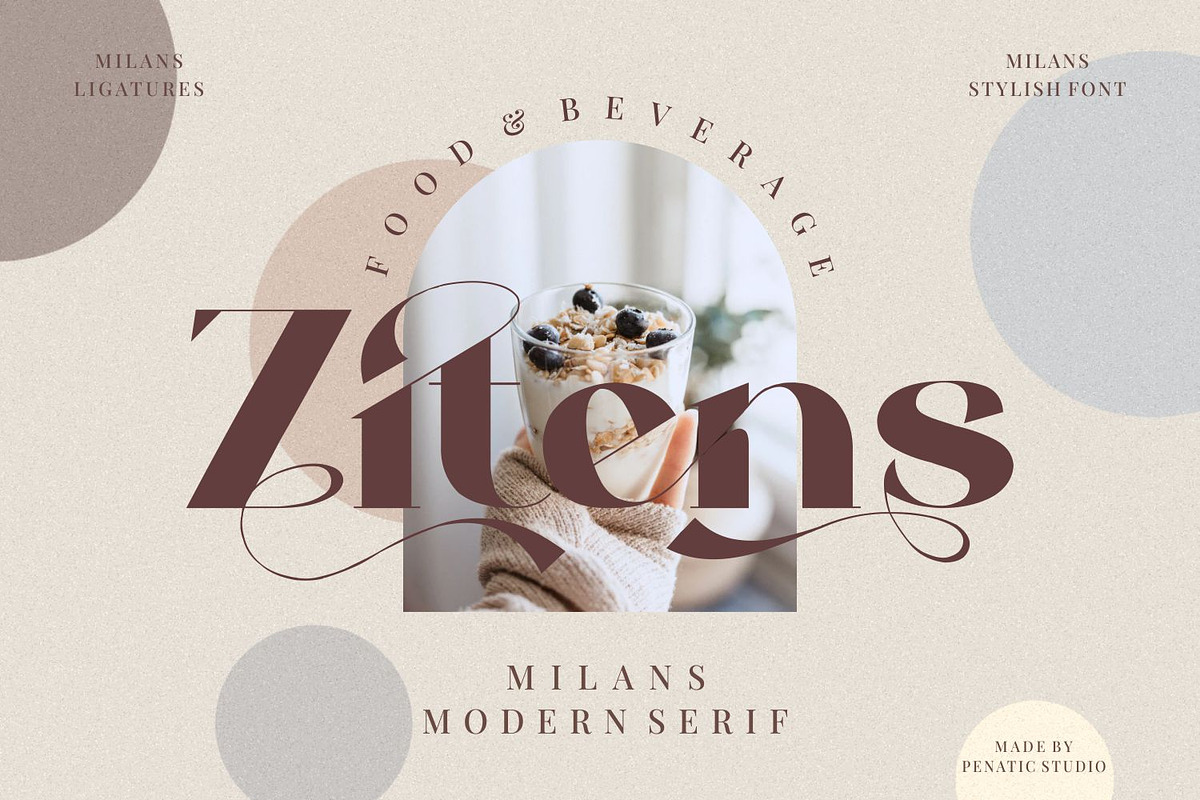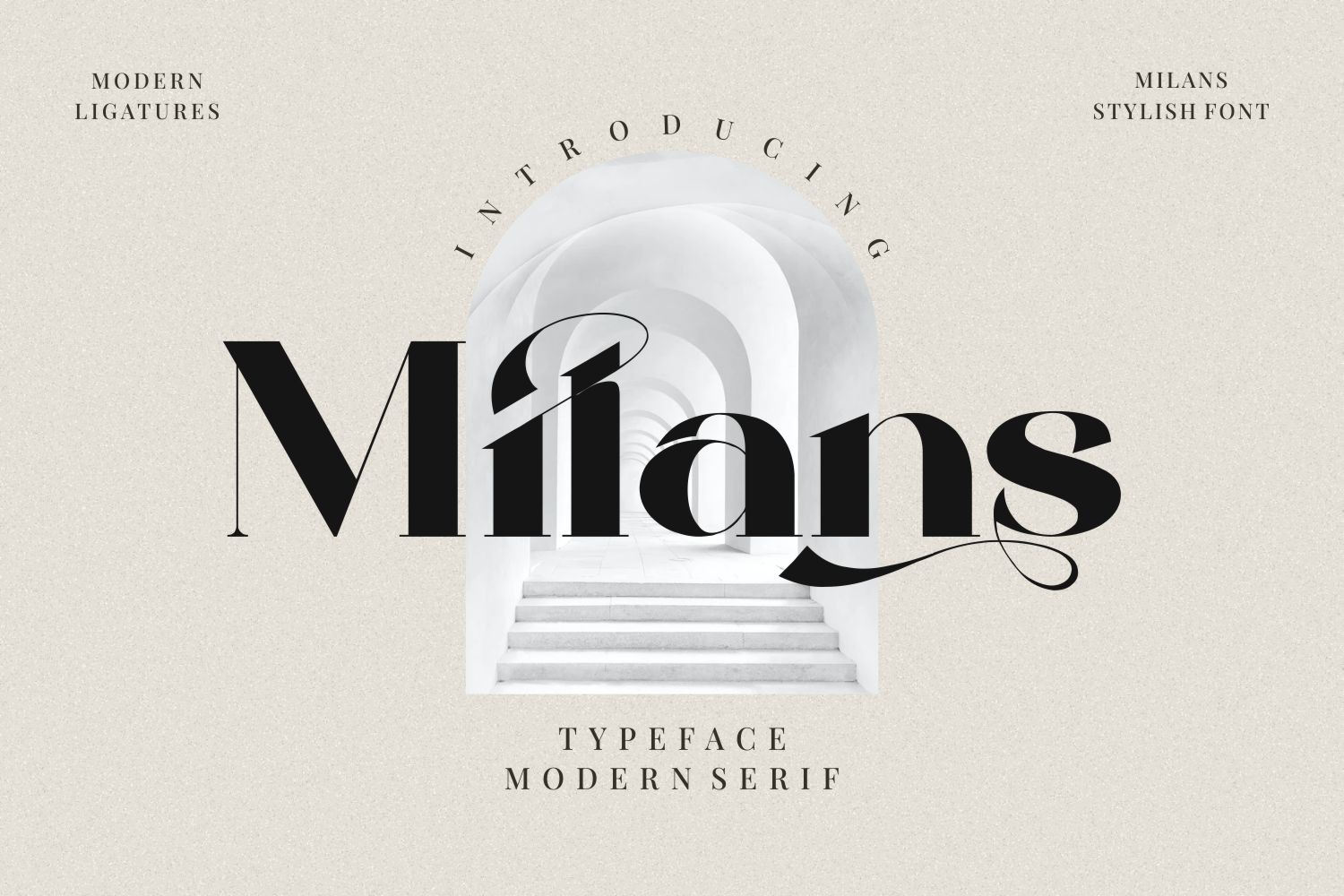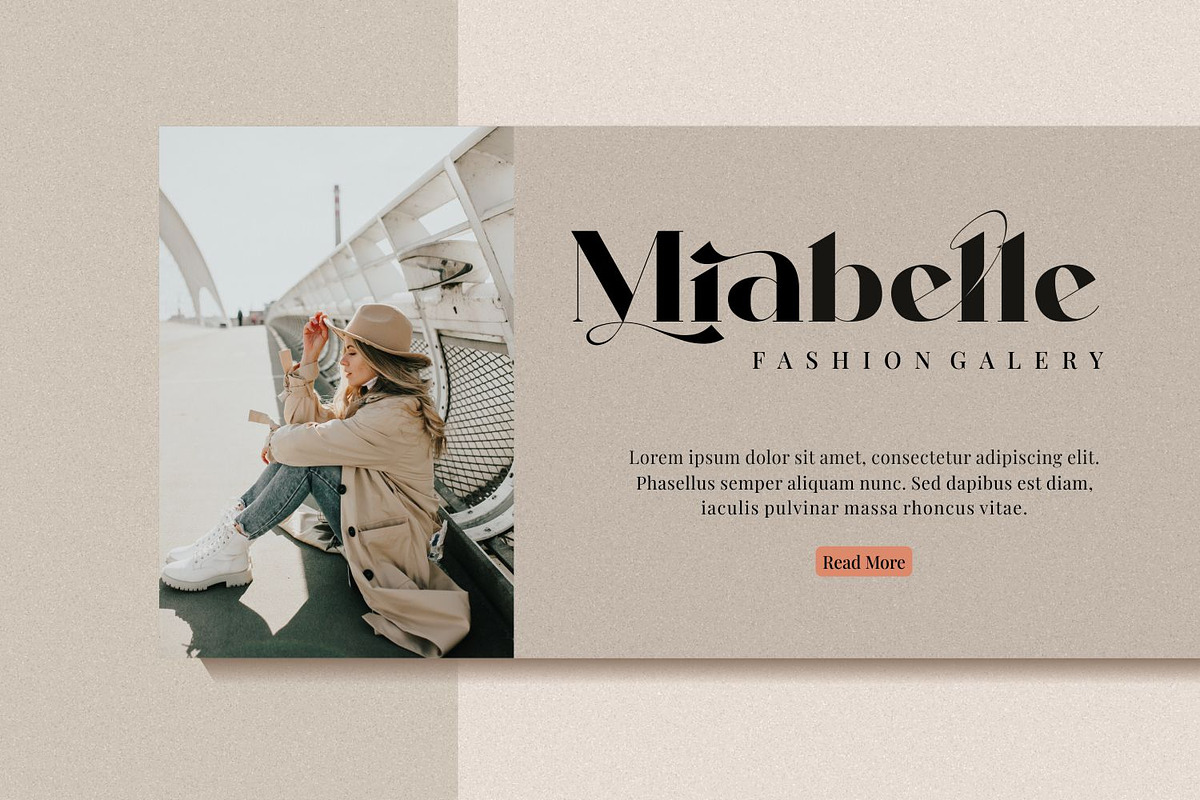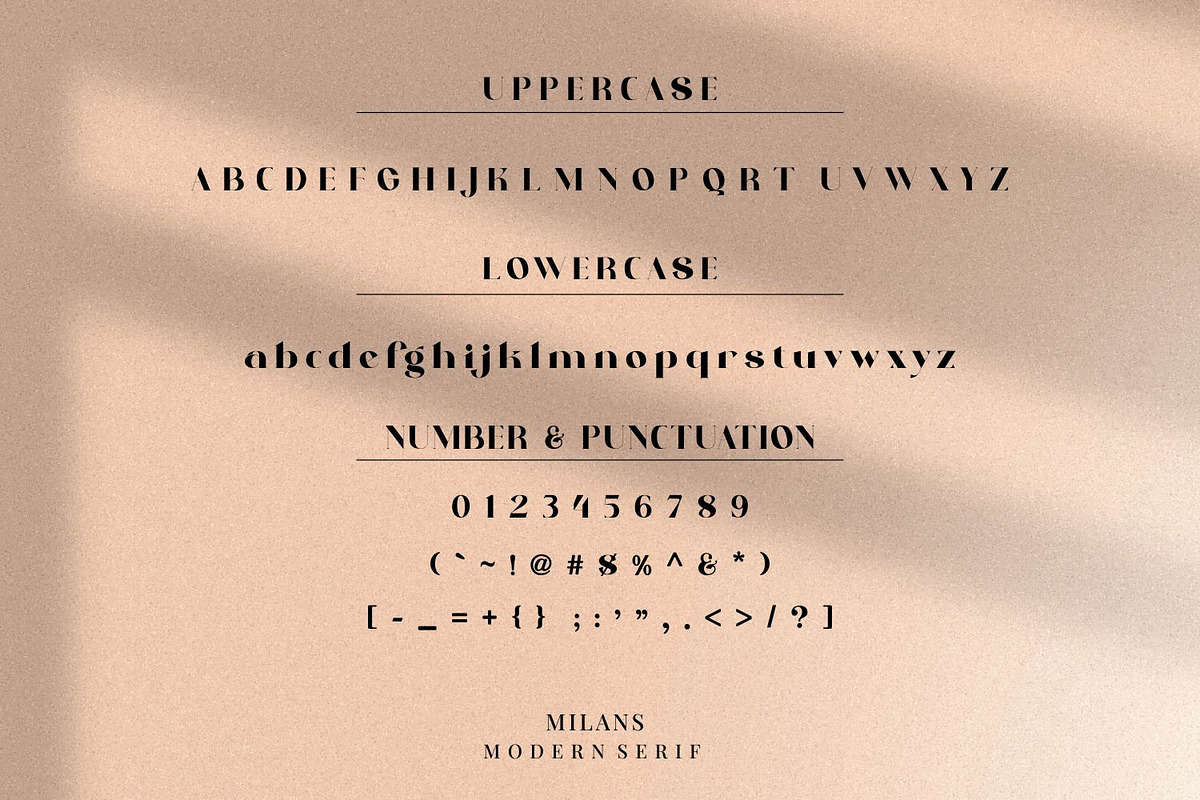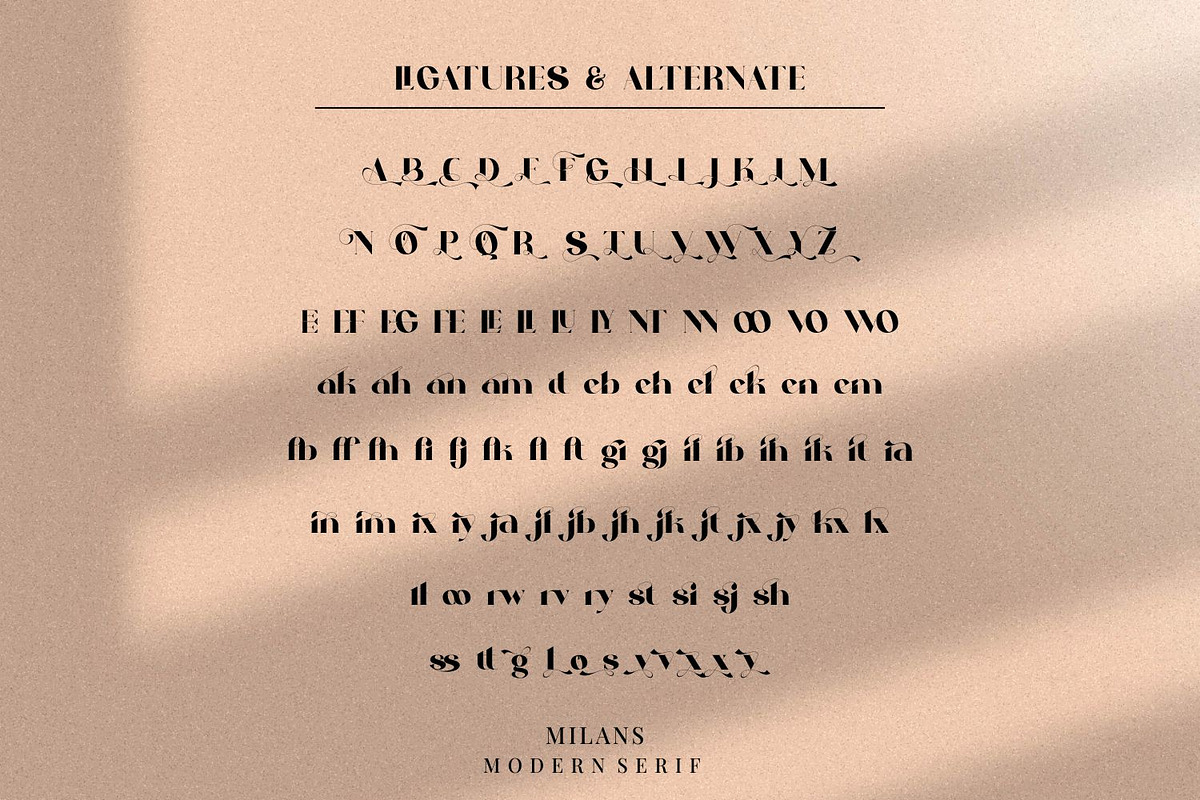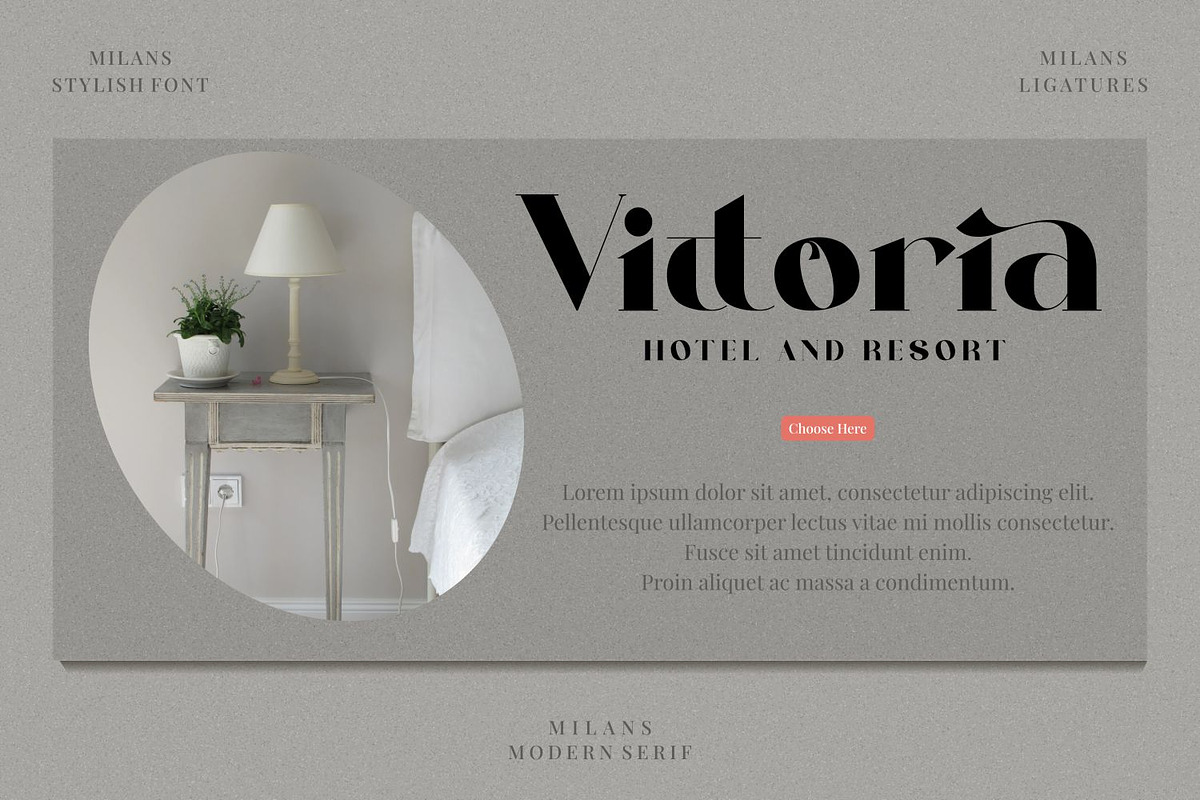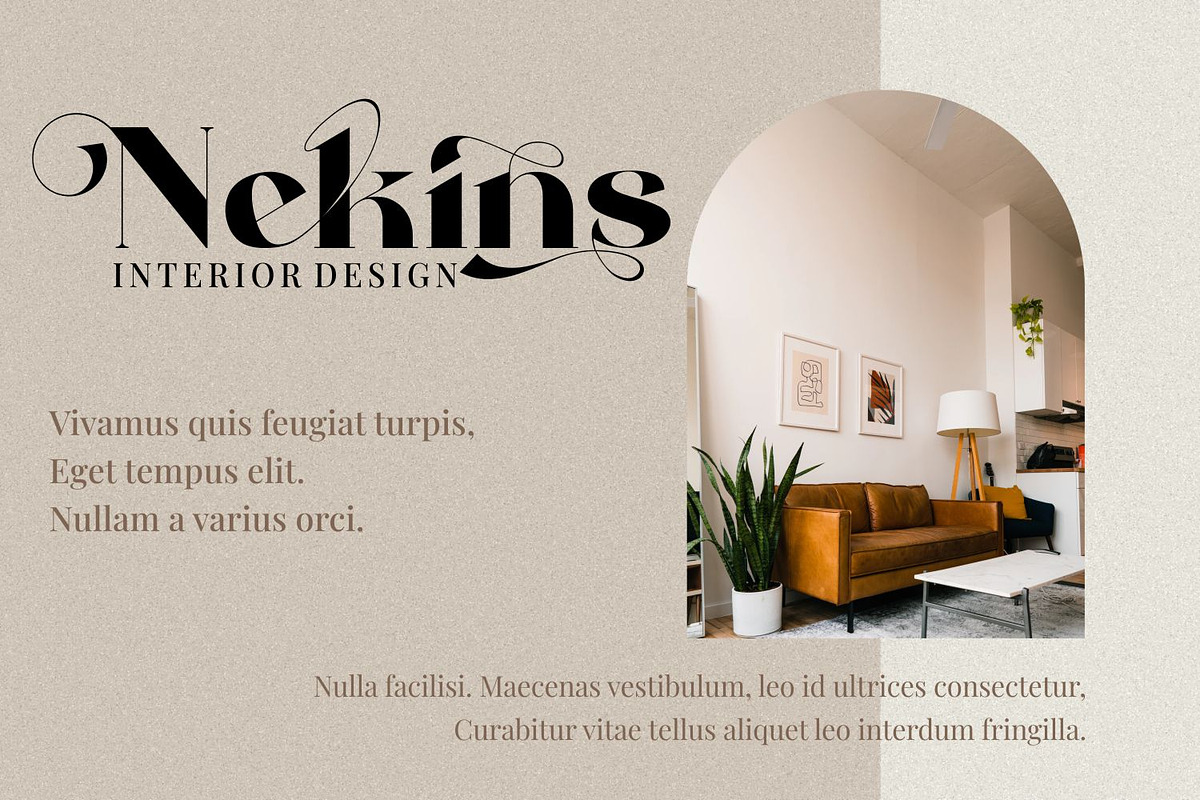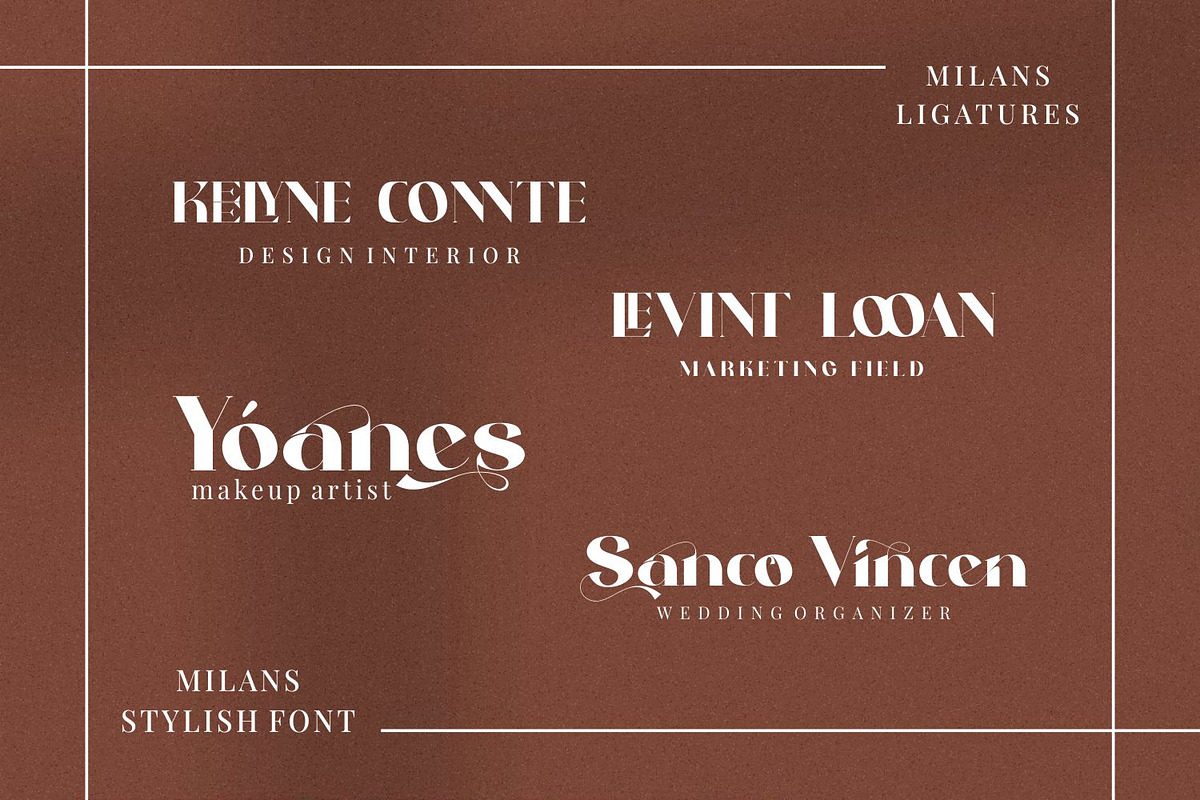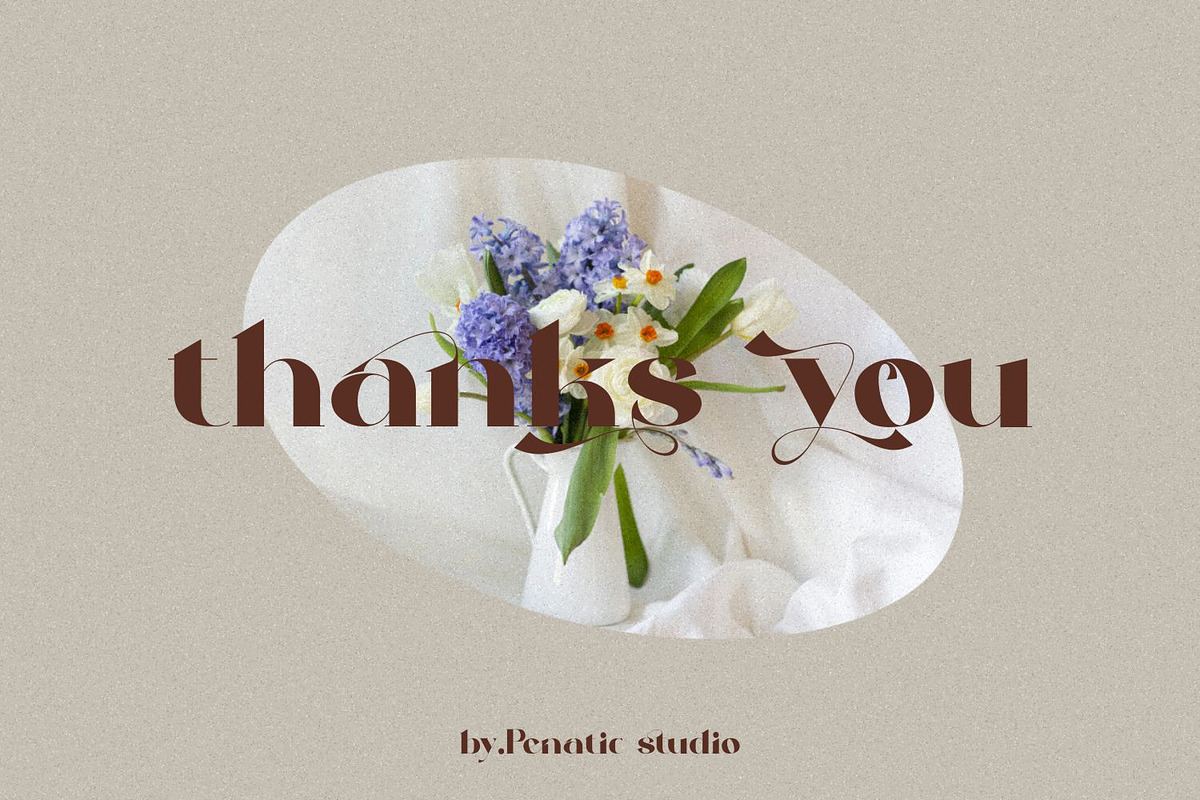
Milans_Typeface Modern Serif
Introducing our new "Milans'', a modern serif typeface and has a unique style & luxury look. Perfect for branding, logos, invitations, master heads, magazine covers, book or movie titles, fashion brands, magazines, clothing, fonts, quotes, and much more.
Ligature
Many languages
Alternative